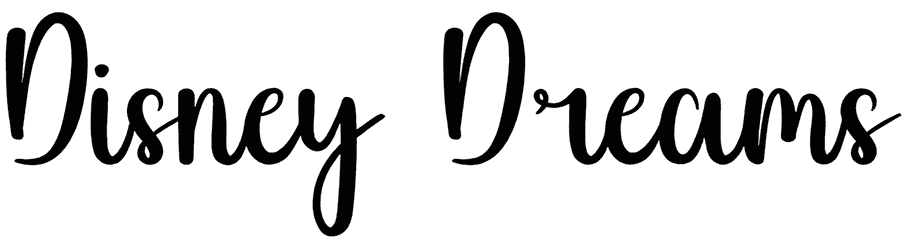
Disney Dreams Font
Disney Dreams is a marvelous dream font that is masterfully crafted with accurate kerning and really deserves to be one of your viable options in the field of designing captivating graphic content.
Due to its rounded edges, it can be easily matched with a wide set of content, such as blog posts, digital banners, flyers, storybook covers, or illustrations. The flattering point about this artwork is that it comes with a sense of tenderness, captivation, vitality, or momentum.